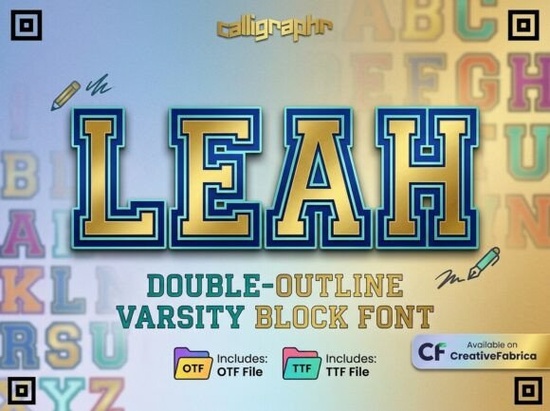
If you're looking for a bold, athletic font that carries real presence without feeling dated or overly casual you’ll want to try Leah Font. It’s not just another varsity-style typeface. Leah stands out with its clean, double-outline structure and subtle gold-metallic gradient that gives it a polished, premium look ideal for sports branding, custom spirit wear, or even high-end merchandise like varsity jackets and championship banners.
What makes Leah different from other athletic fonts?
Most blocky sports fonts lean heavily into retro or distressed aesthetics think cracked leather or weathered jersey textures. Leah takes a more refined approach. Its weight is substantial (hence “heavy-duty”), but the outlines are sharp and intentional, not rough or uneven. That double contour adds depth without clutter, and the gold gradient isn’t flashy it’s understated enough for embroidery digitizing or vector cutting, yet rich enough to catch the eye on printed apparel or signage.
This balance means Leah works well across formats: screen-printed hoodies, heat-pressed team gear, vinyl decals for lockers, or even digital graphics for social media posts announcing tournament wins. Unlike some display fonts that lose clarity at small sizes, Leah holds up cleanly down to 24–30 pt in layout software great for name tags or roster sheets alongside larger headlines.
Who’s using Leah and where does it fit best?
Small businesses making custom jerseys often pair Leah with simpler sans-serifs for body text, letting it anchor headlines or team names. Print-on-demand sellers report strong performance when using Leah on NCAA-inspired merch, especially around March Madness or back-to-school season. Crafters working with Cricut or Silhouette machines appreciate how smoothly its outlines convert to cut files no jagged edges or overlapping paths.
Designers building brand identities for youth leagues or collegiate clubs also find Leah versatile: it reads as traditional enough to honor school heritage, but modern enough to avoid cliché. For example, pairing Leah with Forever Humble Font creates an effective contrast bold leadership meets grounded, approachable tone.
How does Leah compare to similar fonts on Creative Fabrica?
Compared to Jersey Distressed Font, Leah skips the grunge effect entirely. That makes it better suited for upscale spirit wear or formal event graphics like a championship banquet invitation instead of a practice schedule poster. If your project calls for authenticity over polish, Jersey Distressed still has its place. But if you’re aiming for prestige, Leah delivers it quietly.
It’s also structurally distinct from Western-themed fonts like Cowboy Western Font. While both have strong silhouettes, Leah avoids spur-and-star motifs, keeping focus on clean geometry and tonal richness. And unlike Romantic Aura Duo Font, which leans decorative and script-based, Leah stays firmly in the confident, no-nonsense category making it easier to mix with neutral type families.
- Pair wisely: Avoid stacking Leah with other heavy display fonts. Try it with a light, neutral sans-serif (like Montserrat Light or Inter) for balance.
- Watch color contrast: The gold gradient looks best on dark backgrounds (navy, charcoal, black). On light substrates, use solid black or deep maroon for impact.
One last note: Leah doesn’t include alternate characters or ligatures but that’s by design. Its strength lies in consistency and readability, not ornamentation. If your goal is clear communication with quiet authority, this is a font that gets out of the way while still commanding attention.